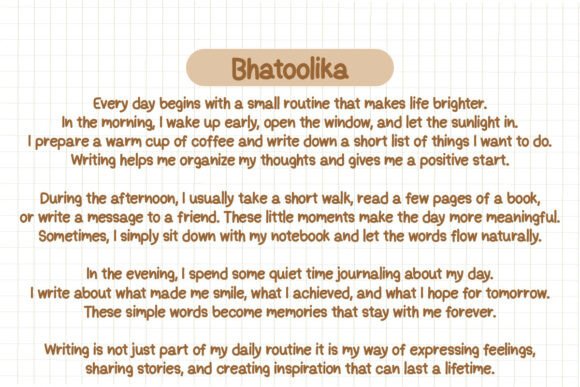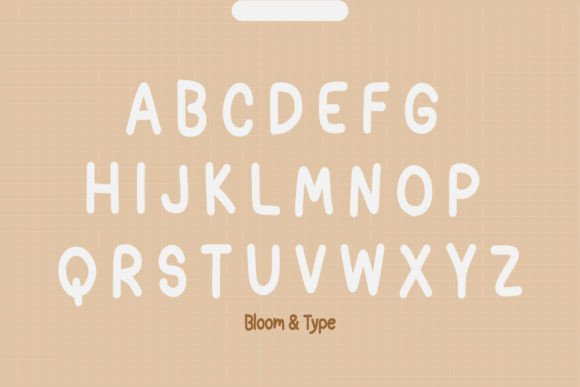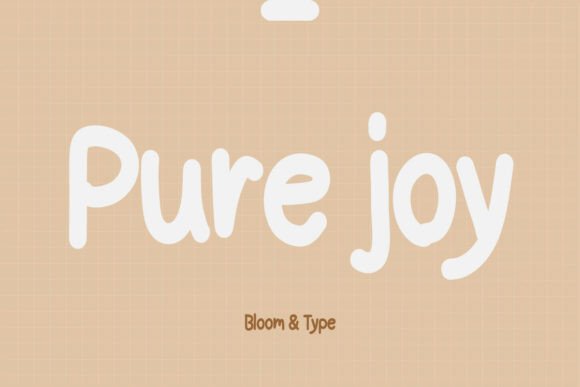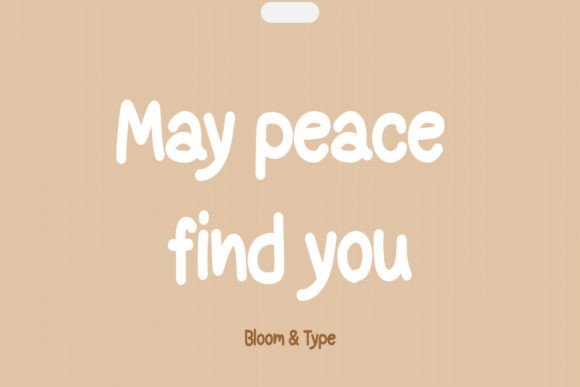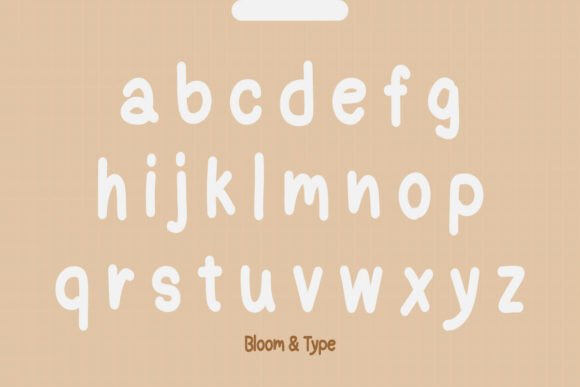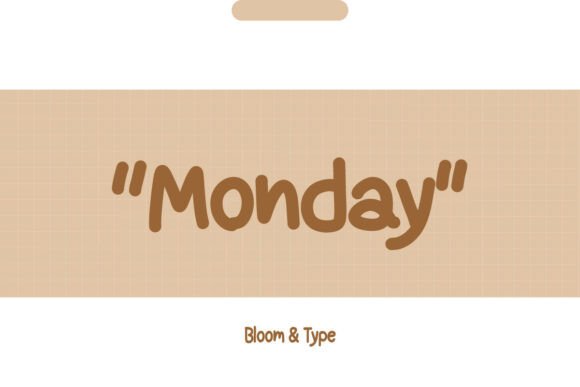
Bhatoolika Font: Adding a Touch of Warmth and Whimsy to Your Designs
In the world of typography, fonts play a crucial role in conveying the tone and personality of a brand or design. If you’re looking for a font that exudes warmth, friendliness, and a touch of playfulness, look no further than Bhatoolika. This soft and playful handwritten font is designed to bring a personal and heartfelt touch to your work, making it perfect for designers and crafters who want to create engaging and approachable designs.
The Characteristics of Bhatoolika
Bhatoolika is characterized by its rounded shapes and gentle strokes, which capture the natural flow of handwriting while maintaining a clean and easy-to-read appearance. The font’s style feels friendly, cozy, and slightly whimsical, making it ideal for designs that need a personal touch. Whether you’re creating branding, social media content, or printed materials, Bhatoolika adds a charming and approachable vibe that instantly connects with viewers.
Key Features of Bhatoolika
- Uppercase & Lowercase: Bhatoolika includes both uppercase and lowercase letters, allowing you to create a wide range of designs and text styles.
- Numbers & Punctuation: The font also includes numbers and punctuation marks, making it a versatile choice for various design projects.
- Soft Handwritten Style: Bhatoolika’s soft and playful handwritten style makes it perfect for designs that need a personal and heartfelt touch.
- Multilingual Support: Bhatoolika supports multilingual characters, giving you the flexibility to use it in a wide range of creative projects.
- Essential Symbols: The font includes essential symbols, making it a comprehensive choice for designers and crafters.
Versatility and Readability
One of the standout features of Bhatoolika is its versatility and readability. The font’s smooth curves and balanced spacing ensure that it remains easy to read across different sizes, from bold headlines to longer text. This makes it perfect for a wide range of design projects, from modern and sleek designs to more casual and playful ones.
Design Applications
Bhatoolika is a versatile font that can be used in various design applications, including:
- Branding: Use Bhatoolika to create a personal and heartfelt brand identity that connects with your audience.
- Social Media Content: Add a touch of warmth and whimsy to your social media content with Bhatoolika.
- Printed Materials: Use Bhatoolika to create engaging and approachable printed materials, such as brochures, flyers, and posters.
- Crafting and DIY Projects: Bhatoolika is also perfect for crafters and DIY enthusiasts who want to add a personal touch to their projects.
Why Choose Bhatoolika?
So why choose Bhatoolika over other fonts? Here are a few reasons:
- Unique and Playful Style: Bhatoolika’s soft and playful handwritten style sets it apart from other fonts.
- Versatility: The font’s versatility and readability make it perfect for a wide range of design projects.
- Multilingual Support: Bhatoolika’s multilingual support gives you the flexibility to use it in various creative projects.
- Easy to Read: The font’s smooth curves and balanced spacing ensure that it remains easy to read across different sizes.
In conclusion, Bhatoolika is a unique and versatile font that can add a touch of warmth and whimsy to your designs. Its soft and playful handwritten style, combined with its versatility and readability, make it perfect for a wide range of design projects. Whether you’re a designer or crafter, Bhatoolika is a great choice for anyone looking to create engaging and approachable designs.